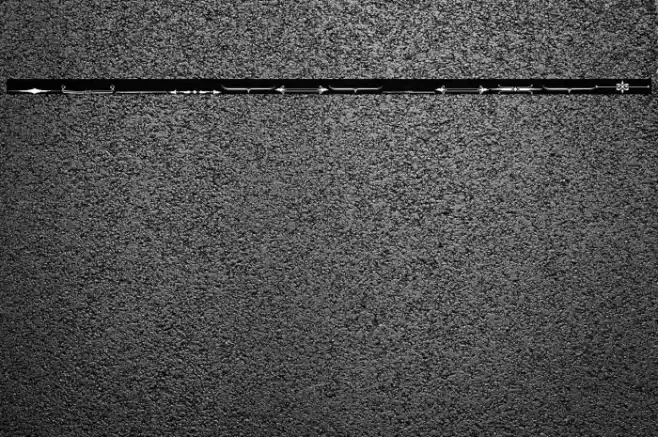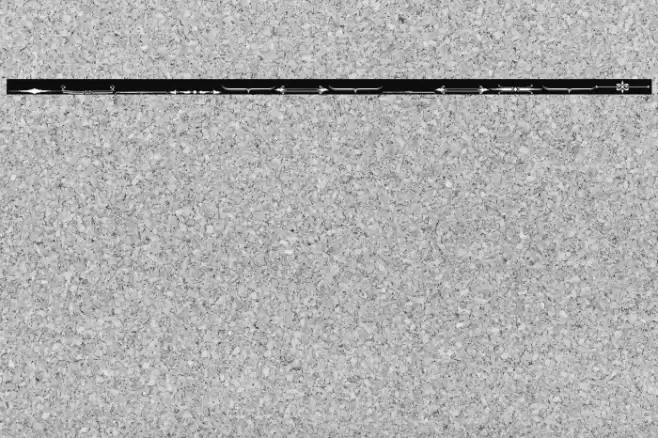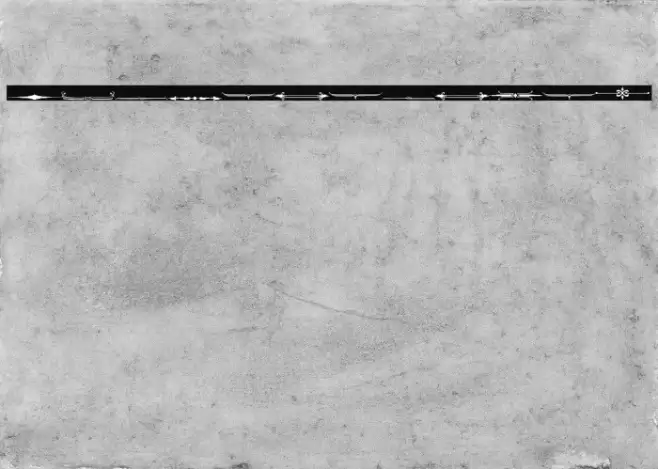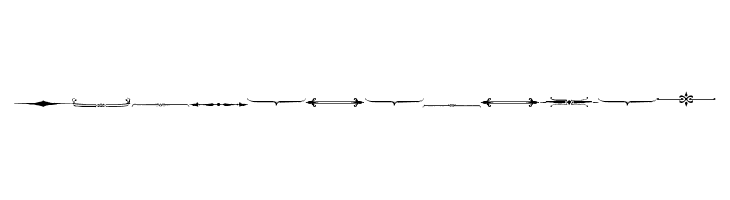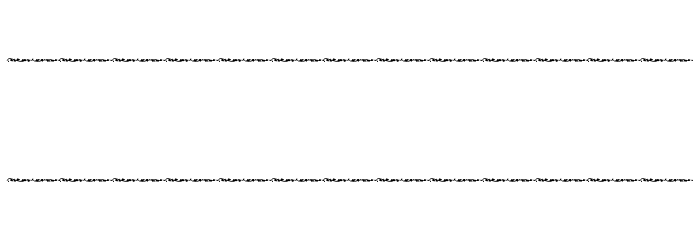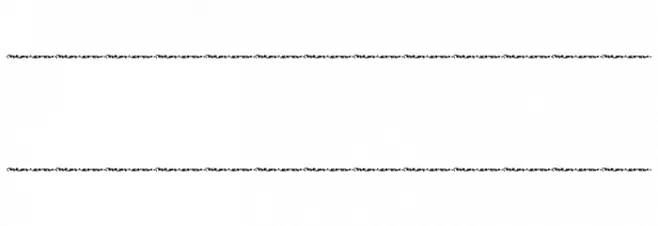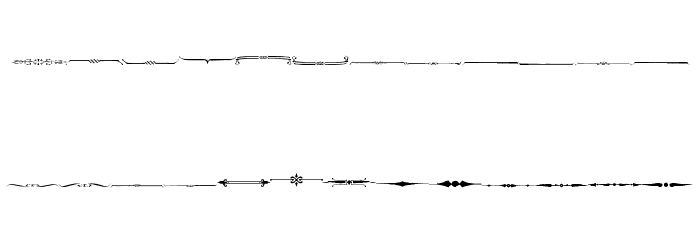
Sughayer Separates 6 Font
Sughayer Separates 6 Description
A collection of decorative horizontal line separators with intricate, ornamental details and varying thicknesses, designed for embellishing layouts or dividing sections in print or digital media.
Ornamental decorative line separators with varied motifs from Uncategorized fonts.
- Overall Style: Vintage, Decorative
- Use Case: Section dividers, ornamental accents, invitations, certificates